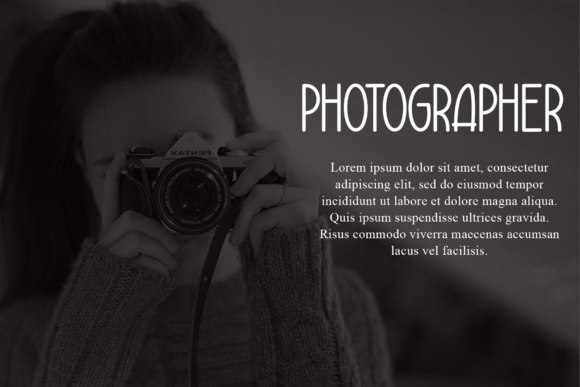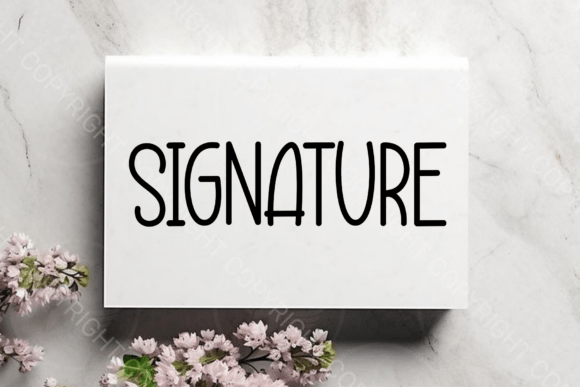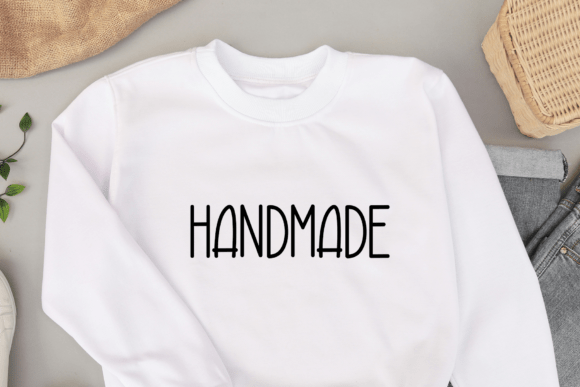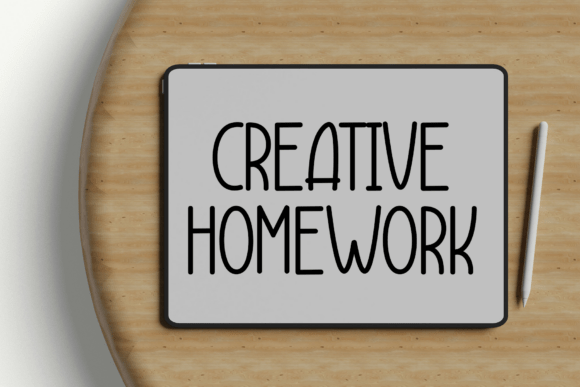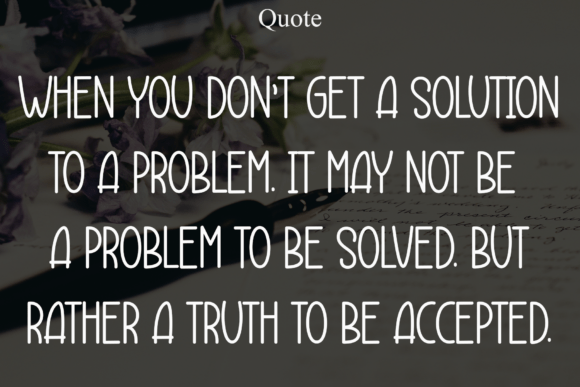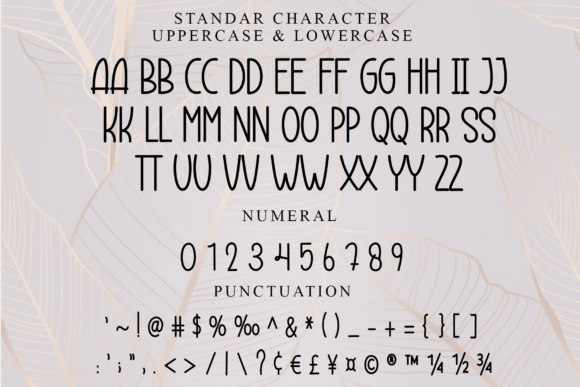
Introduction to Honey Handmade Font
Do you remember the excitement of creating handmade holiday cards as a child? The joy of decorating them with glitter, stickers, and colorful markers? As a designer, you’re likely looking for ways to recapture that same magic in your creative projects. Enter the Honey Handmade Font, a festive and merry typeface that’s sure to bring a touch of enchantment to your designs.
This beautiful font is the perfect addition to any holiday-themed project, from greeting cards and gift tags to festive social media posts and advertisements. With its high-quality design and transparent background, it’s easy to integrate into your design workflow. Plus, with its PUA encoding, you’ll have access to all the amazing glyphs and ligatures to make your typography shine. Whether you’re a seasoned designer or a beginner, the Honey Handmade Font is a valuable resource that’s sure to elevate your creative projects.
Key Features of Honey Handmade Font
- High-quality, hand-drawn design perfect for creative projects and personal use.
- Available in 6 different font styles, each with its own unique characteristics and feel.
- Comes with a transparent background, making it easy to use in any design resource.
- Perfect for use in digital design, such as logos, branding, and graphics, as well as in print design, like business cards and brochures.
- Unique, handcrafted feel that adds a touch of personality to any design project, making it a valuable design resource.
Honest Review: Honey Handmade Font
I recently stumbled upon the Honey Handmade Font and was excited to give it a try. As a designer, I’m always on the lookout for unique and high-quality design resources to elevate my creative projects. ✨
Here are some things that I like about this font:
- Its quirky and charming aesthetic makes it perfect for adding a touch of personality to any design.
- The transparent background makes it easy to use with any background image or color.
- The font is highly customizable, allowing me to adjust the size, color, and style to suit my needs.
- The font may not be suitable for formal or corporate designs, as it has a more playful and whimsical feel.
Overall, I’m impressed with the Honey Handmade Font and would definitely recommend it to designers who are looking for a unique and high-quality design resource for their creative projects. ✨
For the best results, use Honey Handmade Font in conjunction with other high quality design elements. Experiment with different font sizes, colors, and styles to find the perfect look for your design. You can also use Honey Handmade Font to create a cohesive brand identity.
Honey Handmade Font is perfect for wedding invitations, birthday party invitations, and other creative projects where a unique and high quality font is needed. Its transparent background makes it easy to use in combination with other design elements.